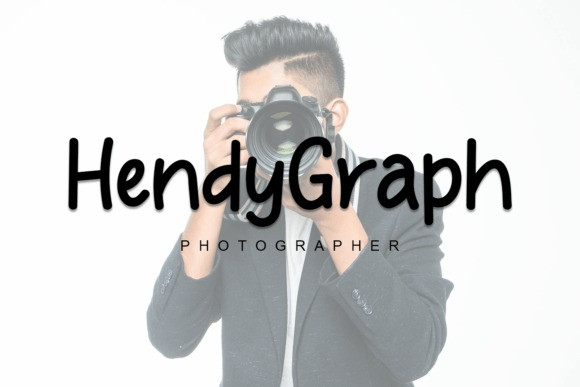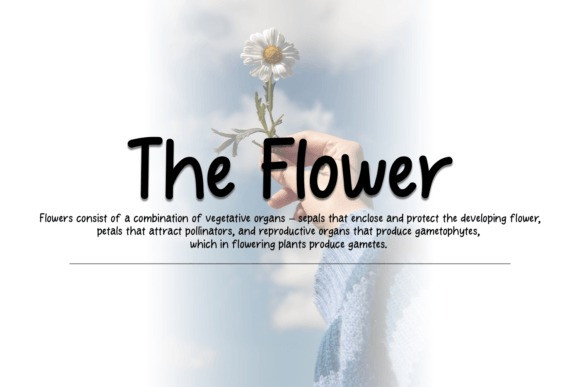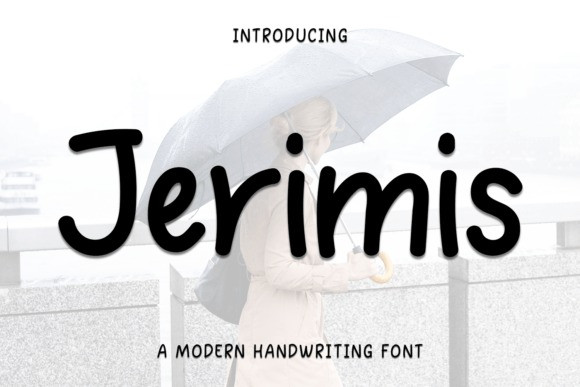
Jerimis Font
Jerimis Font is a modern font made to look like handwriting. This simple and unique designed font is suitable for designing a poster, text title, fun, cuteness, and many more. In addition, each typed letter will be neatly organized and regular like writing.